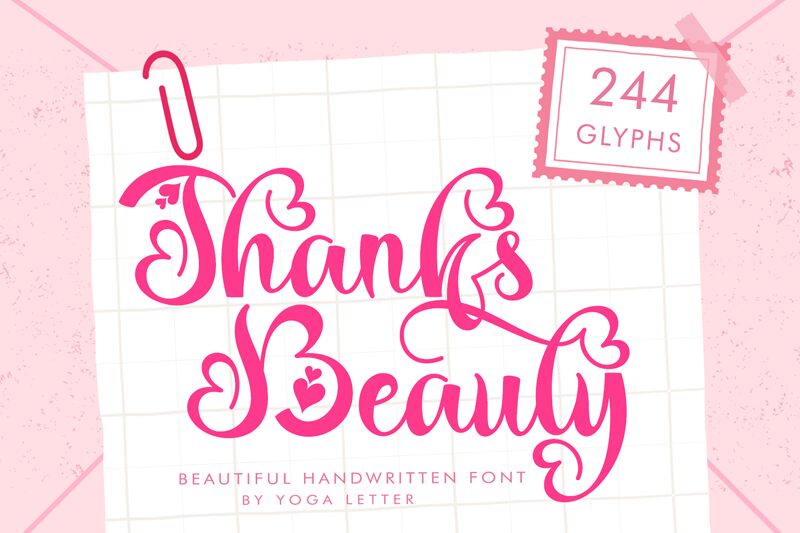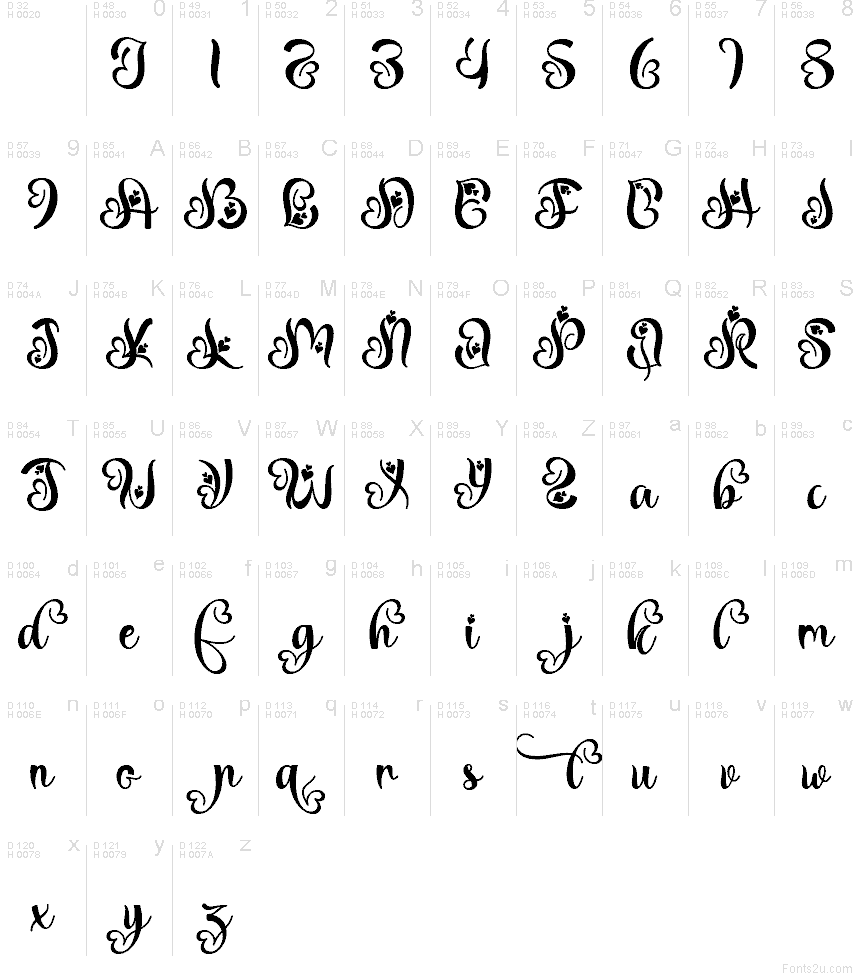
Thanks Beauty Demo
Thanks Beauty font by Yoga Letter is a free romantic holiday calligraphy typeface that drapes every word in looping flourishes and heart-shaped details. Its inky strokes feel hand-lettered and slightly whimsical, with swooping tails and soft curves that give even short phrases a lush, handwritten warmth.
Using Thanks Beauty, love notes, Valentine cards, wedding favors, bridal shower signage, gift tags, logos for floral or beauty brands, and social media quotes instantly feel more intimate and playful. This free font shines at larger sizes where the curls and heart accents can breathe; pair it with a clean, neutral sans serif for supporting text so the script can keep center stage.